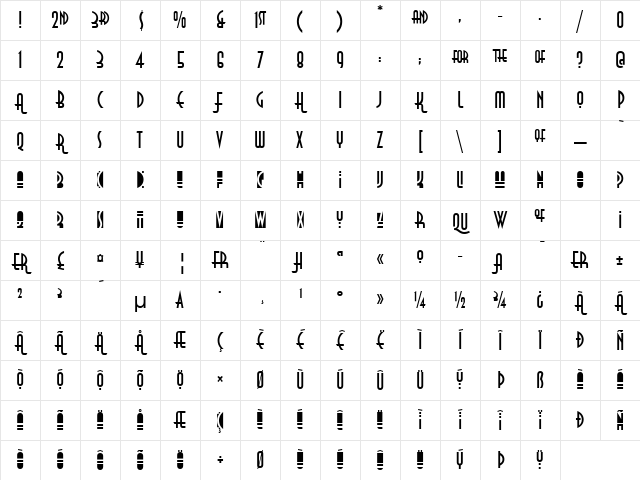
AnnaAlternatesITCTT Regular
Foundry: International Typeface Corporation
Designer: Daniel Pelavin
Design Context for AnnaAlternatesITCTT
AnnaAlternatesITCTT is a composed and adaptable typeface that performs quietly and consistently across a wide range of design contexts.